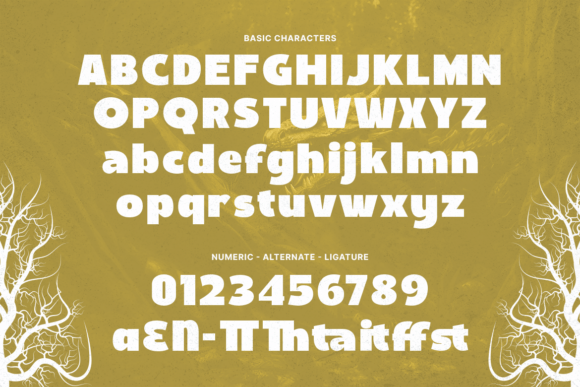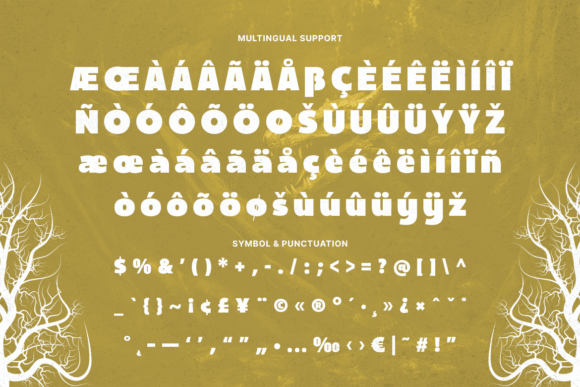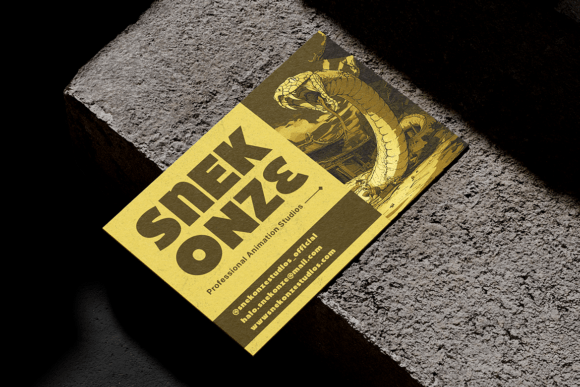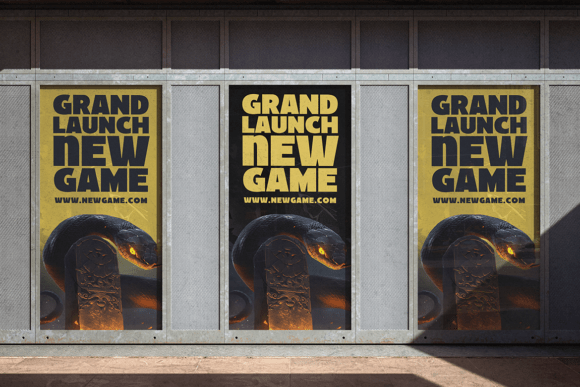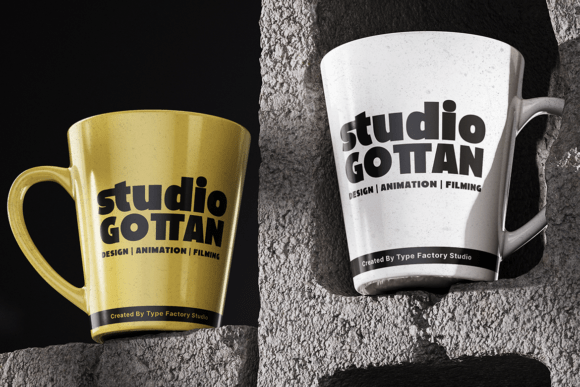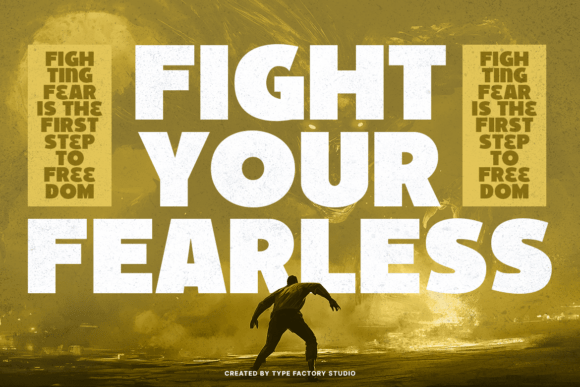
Unleashing the Power of Typography: Introducing the Bitail Font
As a designer, there’s nothing quite like the thrill of finding the perfect font to elevate your project. You’re brainstorming ideas, experimenting with different combinations, and suddenly – it clicks. The right font can make all the difference, and that’s exactly what the Bitail Font is designed to do.
With its bold sans serif style and geometric shapes, the Bitail Font is built to command attention. Whether you’re creating eye-catching posters, promotional graphics, or branding materials, this typeface is sure to make your message stand out. Its balanced proportions and solid strokes ensure readability, while its compact construction delivers a strong typographic impact. The Bitail Font is more than just a font – it’s a powerful tool for designers looking to make a lasting impression.
Bitail Font Key Features
- Font Family: Bitail Font is a sans-serif font family designed for digital use.
- Resolution: Optimized for high-resolution displays, suitable for use at 300 DPI and above.
- Size: Available in multiple weights, from Light to Extra Bold, with corresponding font sizes ranging from 8 to 72 points.
- Unique Characteristics: Bitail Font features a clean and modern design, with a unique combination of geometric and organic elements, making it suitable for a wide range of digital applications, including corporate branding, advertising, and editorial content.
Bitail Font Review
As a designer, I was excited to dive into the Bitail Font and see what it had to offer. Overall, I found it to be a solid, well-crafted font that could be a great addition to many projects.
- Bitail Font has a clean, modern aesthetic that lends itself well to digital applications.
- The font is highly legible, even at smaller sizes, making it a great choice for body text.
- The font family includes a range of weights and styles, giving designers a lot of flexibility in terms of typography.
- The font is highly customizable, allowing designers to adjust the spacing, color, and other elements to fit their specific needs.
- While Bitail Font is highly legible, it may not be the best choice for projects that require a more elegant or luxurious feel.
- The font may not be suitable for very small sizes, as it can become difficult to read.
- The font family is relatively small, which may limit its versatility in certain projects.
Overall, I would recommend the Bitail Font to designers who are looking for a clean, modern font that is highly legible and customizable. However, it may not be the best choice for projects that require a more elegant or luxurious feel.
The Bitail Font is suitable for various design projects, including:
– Print materials (business cards, brochures, etc.)
– Digital designs (websites, social media, etc.)
– Editorial and publishing projects
Tips for Getting the Most Out of Bitail Font
For optimal results, use Bitail Font in conjunction with high-contrast colors and clean layouts. This font is particularly effective for headings and titles due to its unique, elegant design.